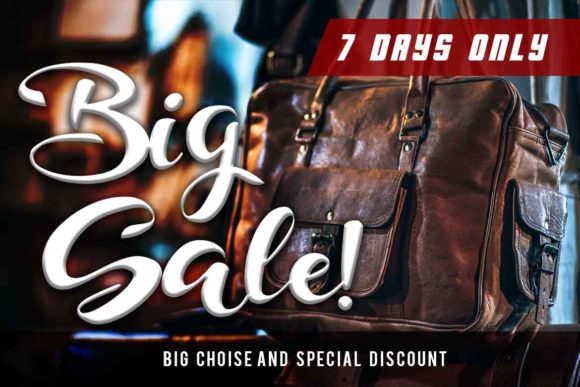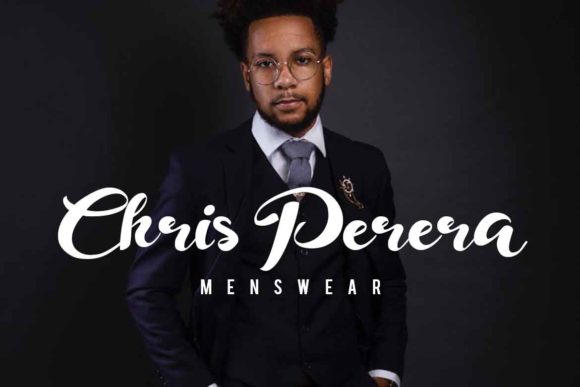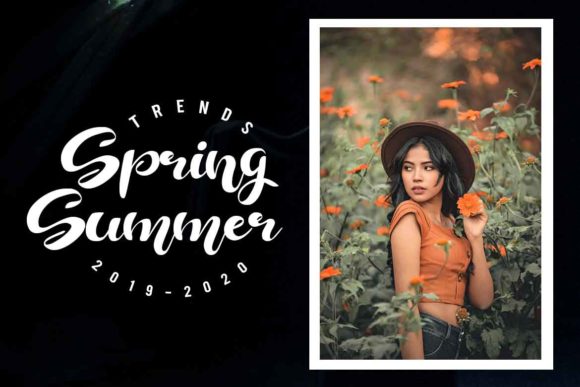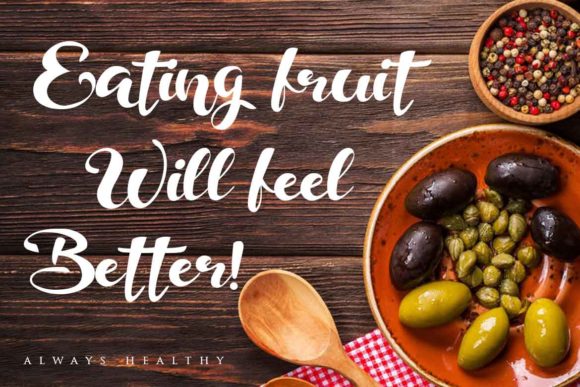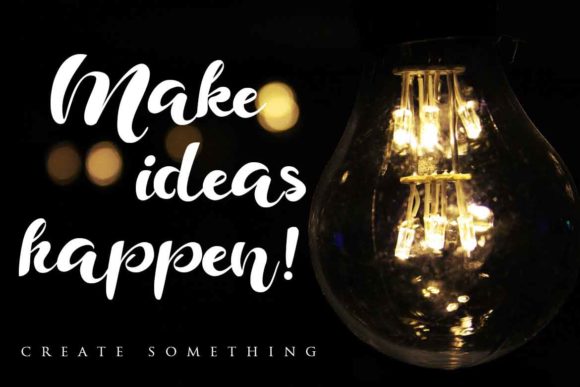
Introducing Delphine Font: The Bold Script Font That Adds a Touch of Uniqueness to Your Designs
Are you tired of using the same old fonts in your designs? Do you want to add a touch of personality and uniqueness to your typography? Look no further than Delphine Font, a bold script font that is sure to make your designs stand out from the crowd. With its exciting and unique characters, Delphine Font is the perfect choice for designers and crafters who want to add a bit of flair to their work.
What Makes Delphine Font So Special?
Delphine Font is a one-of-a-kind script font that boasts a bold and eye-catching design. Its unique characters are carefully crafted to add a touch of elegance and sophistication to any design. Whether you’re working on a logo, a poster, or a digital project, Delphine Font is sure to make a statement. Its bold lines and curvaceous strokes make it perfect for headlines, titles, and other display text.
Key Features of Delphine Font
- Bold and Eye-Catching Design: Delphine Font features a bold and eye-catching design that is sure to grab attention.
- Unique Characters: Each character in Delphine Font is carefully crafted to be unique and exciting, adding a touch of personality to your designs.
- Script Font Style: Delphine Font is a script font that features curvaceous strokes and bold lines, making it perfect for headlines and display text.
- Easy to Read: Despite its bold design, Delphine Font is easy to read, making it perfect for use in a variety of design projects.
How to Use Delphine Font in Your Designs
Delphine Font is a versatile font that can be used in a variety of design projects. Here are a few ideas to get you started:
- Logos and Branding: Use Delphine Font to create a bold and eye-catching logo that will help your brand stand out.
- Posters and Flyers: Add a touch of personality to your posters and flyers with Delphine Font.
- Digital Projects: Use Delphine Font to add a touch of elegance and sophistication to your digital projects, such as website headers and social media graphics.
- Crafting and Scrapbooking: Delphine Font is also perfect for crafters and scrapbookers who want to add a touch of personality to their projects.
Tips for Getting the Most Out of Delphine Font
Here are a few tips for getting the most out of Delphine Font:
- Use it as a Headline Font: Delphine Font is perfect for use as a headline font, where its bold design can really make an impact.
- Experiment with Colors: Delphine Font looks great in a variety of colors, so don’t be afraid to experiment and find the perfect color for your design.
- Pair it with Other Fonts: Delphine Font can be paired with other fonts to create a unique and interesting typography combination.
Delphine Font is a bold and eye-catching script font that is sure to add a touch of uniqueness to your designs. With its exciting and unique characters, Delphine Font is the perfect choice for designers and crafters who want to make their designs stand out from the crowd. Whether you’re working on a logo, a poster, or a digital project, Delphine Font is a great choice. So why not give it a try and see the impact it can have on your designs?
Make your design stand out from the crowd with Delphine Font, a unique typeface that features exciting and bold characters. Get ready to take your designs to the next level with this amazing font!